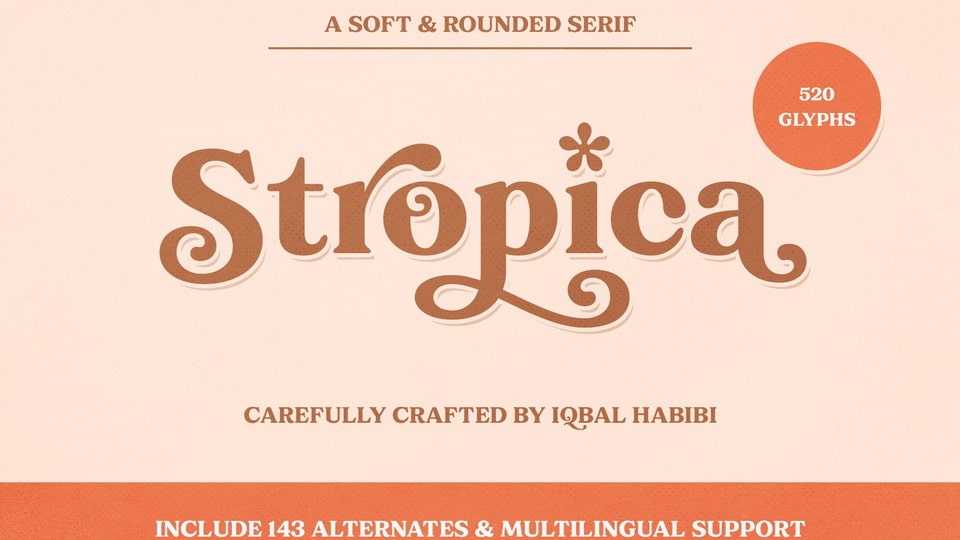
Download Stropica font, a soft and rounded display serif typeface that will bring retro vibes to the modern era. Stropica perfectly suited for headlines, logotypes, titles, packaging designs, quotes, and other graphic design projects.
Designer: Type Combo